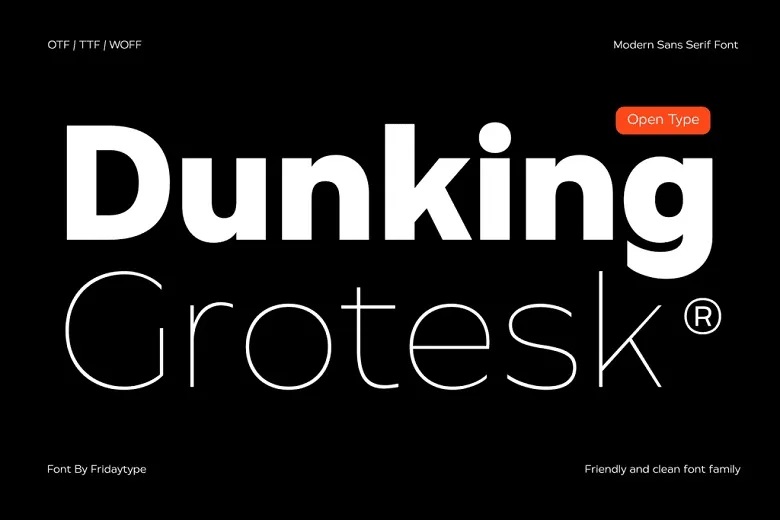
Dunking Groteks Font
Dunking of Groteks Font has a clear vision, modem, and neat geometry that set the new tone in the design industry. It has a somehow relieving touch, having apositive feel to it. This means that this typeface can be applied in magazines, posters, branding, websites and many others.
Dunking Groteks Sans Serif Font